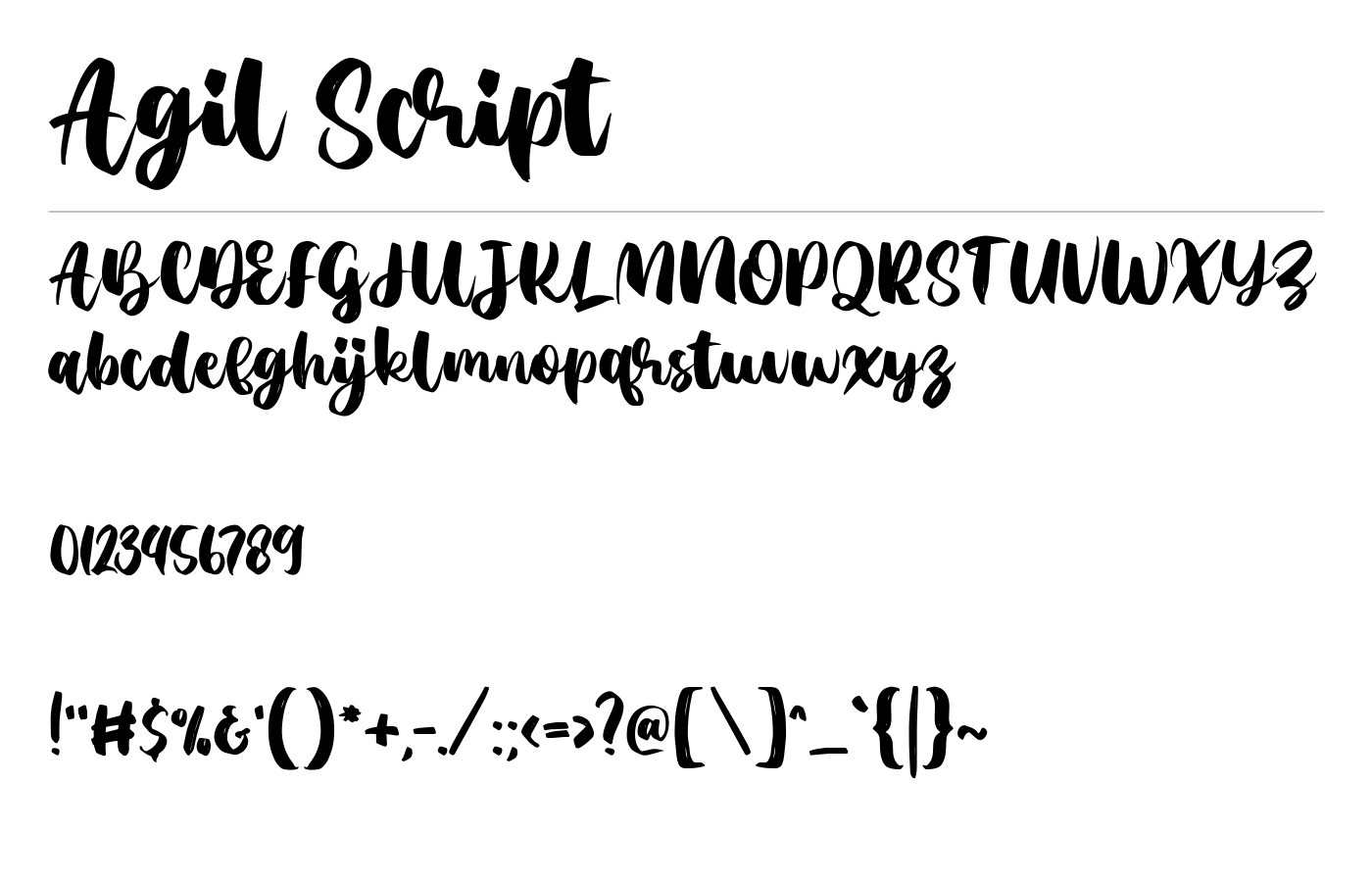
Agil Script is a lively and bold script font with a hand-painted feel, featuring thick and expressive brush strokes that create a strong, energetic presence. Its lively letterforms with varying stroke widths and casual connections lend it a playful yet confident personality, making it ideal for creative branding, invitations, and eye-catching headlines. This font works well where a dynamic, artistic touch is needed to convey warmth and approachability.
Agil Script Font
About Agil Script Font